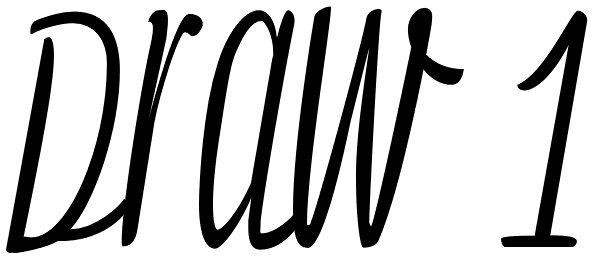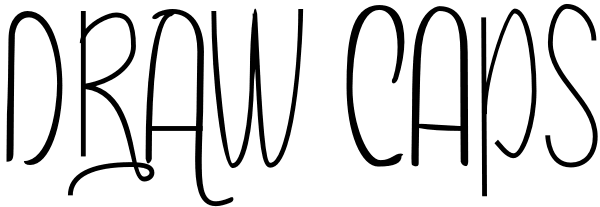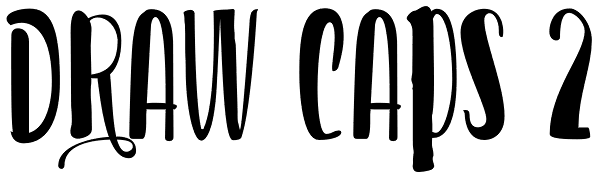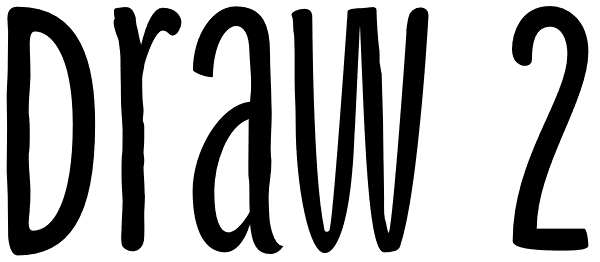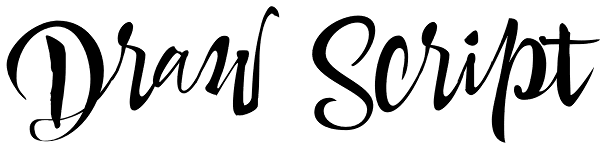
Draw
Draw is a type family designed by Carlos Fabian Camargo G. Draw emphasizes the abundance of useful features to design messages with artistic purposes, spontaneous and vernacular, usually dressed in imaginative ideals to compose words, apparently...